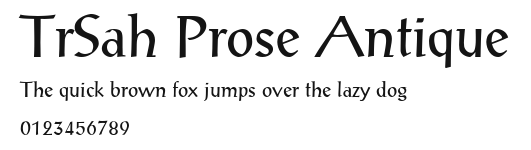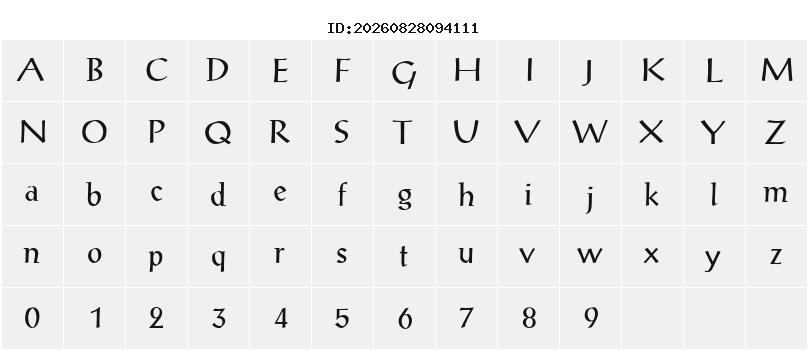
• Font Name: TrSah Prose Antique
• Font Style: Plain
• Full Font Name: TrSah Prose Antique Plain
About TrSah Prose Antique.ttf
TrSah Prose Antique.ttf is a modern, elegant sans-serif font designed for ultimate readability and visual harmony. Perfect for branding, headlines, web design, and print materials.